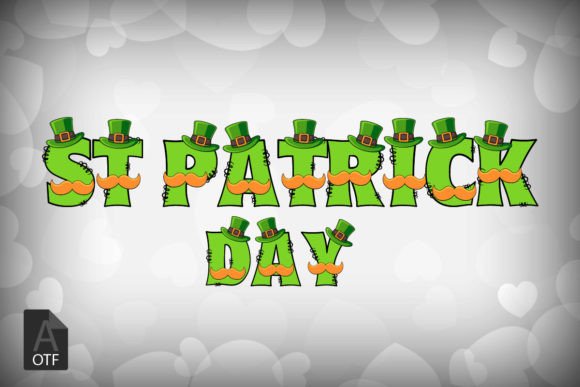
Welcome to the captivating world of St Patrick's Day Font, where color meets creativity and every project is infused with an enchanting festive spirit. Created by the talented team at Little Lady Design, this font is not just your ordinary typeface - it is the Best Font For Web Page Design, guaranteed to elevate your designs to new heights.
Get ready to be mesmerized by the vibrant and captivating colors that adorn this font. St Patrick's Day Font takes the essence of this joyous celebration and translates it into an artistic masterpiece. Each letter is intricately designed, ensuring that your words become a visual feast for the eyes. From the dazzling greens to the shimmering golds, this font exudes an aura of magic and excitement.
Unleash your creativity and let this font be your ultimate companion in design. Whether you're working on a website, a flyer, or a social media post, St Patrick's Day Font will effortlessly add that extra spark to your projects. Its versatility knows no bounds, as it perfectly complements both playful and professional design styles. Take your web page design to a whole new level and captivate your audience like never before.
But it's not just about looks - this font is also packed with emotion and sentiment. St Patrick's Day is a celebration of love, luck, and friendship, and with this font, you can effortlessly convey these heartfelt messages. Let the words dance off the page and create a lasting impression on your audience. From heartfelt quotes to cheerful greetings, St Patrick's Day Font will breathe life into your words and leave a lasting impact on anyone who lays eyes on your designs.
And let's not forget about the practicality of this font. With its impeccable readability and seamless integration, St Patrick's Day Font ensures that your message is effortlessly conveyed to your audience. Say goodbye to boring and mundane fonts that fail to capture attention. With this font, your words will be impossible to ignore, grabbing the attention of potential customers and enticing them to take action.
In conclusion, St Patrick's Day Font by Little Lady Design is not just a font - it's an experience. It's the perfect blend of captivating visuals, heartfelt emotions, and practicality. So why settle for ordinary when you can have extraordinary? Let this font be your secret weapon in creating stunning web page designs and captivating your audience. Download St Patrick's Day Font today and watch your projects soar to new heights of success.